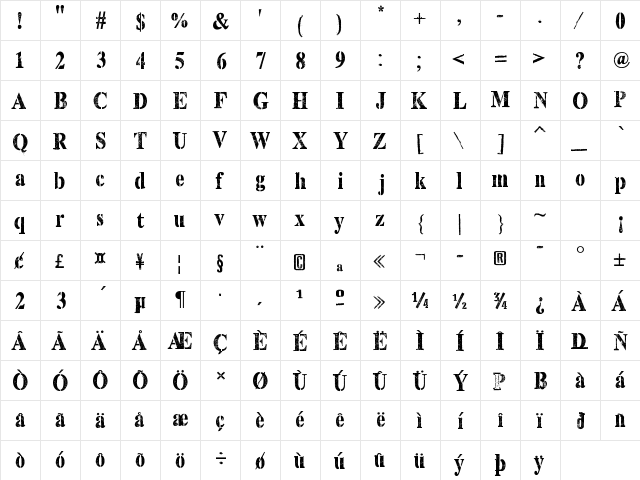
Top Secret Stamp Regular
Design Context for Top Secret Stamp Typeface
Top Secret Stamp borrows the utilitarian aesthetic of stencil lettering, with its characteristic cutaways and no-frills construction lending an industrial edge.
Ideal for industrial branding, streetwear, military-adjacent aesthetics, and urban signage projects.
Pro Tip: Pair Top Secret Stamp with raw, utilitarian design elements — exposed concrete textures, flat colour, and minimal ornamentation suit it well.